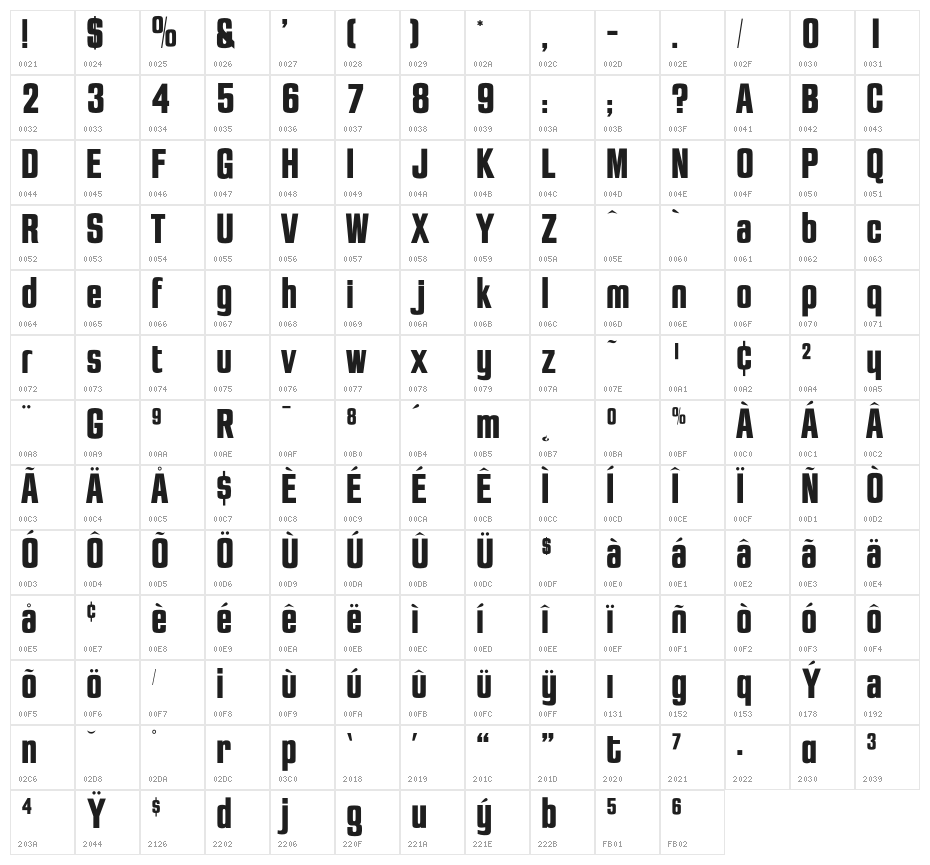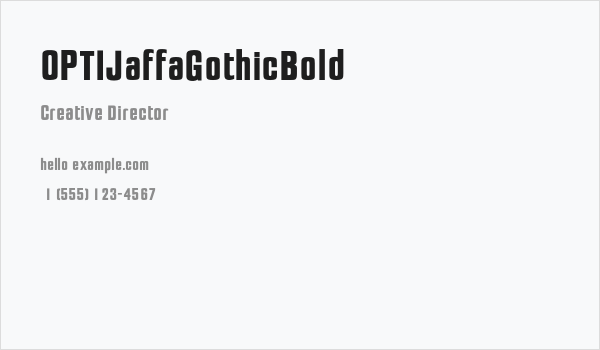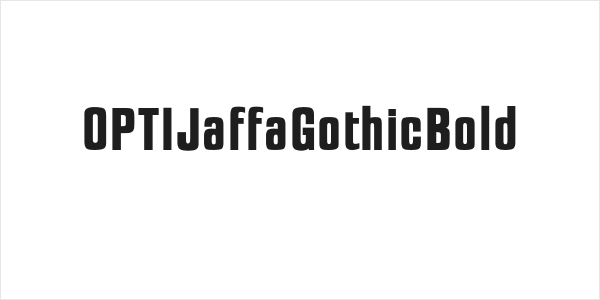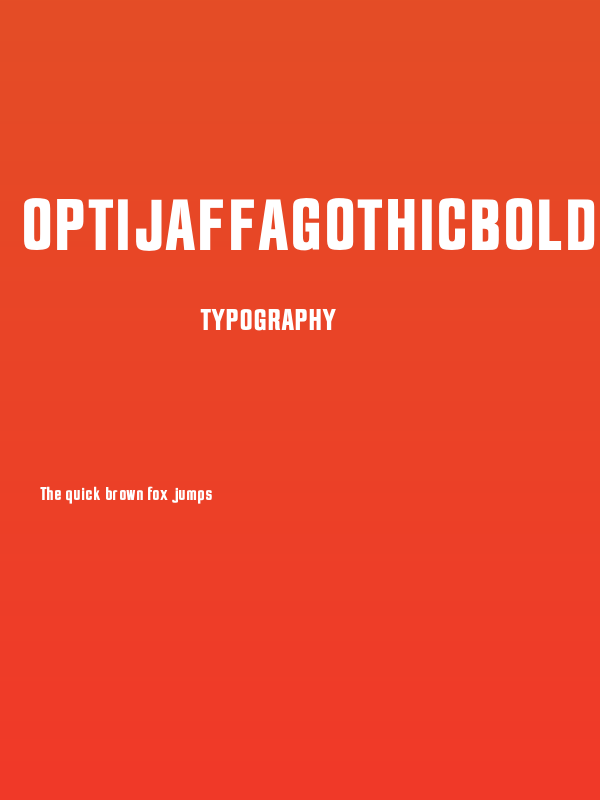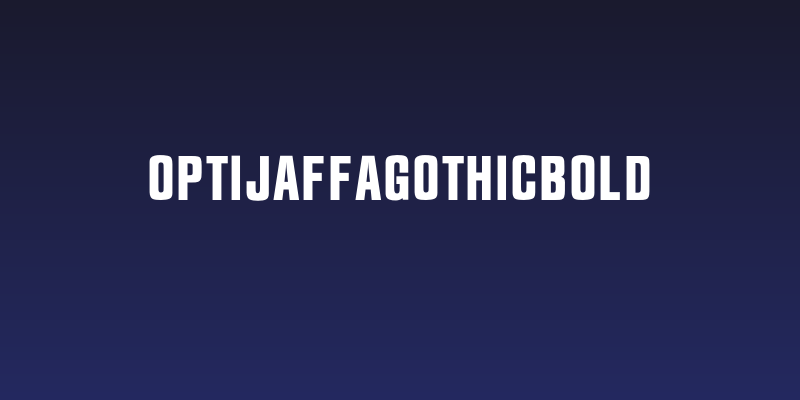
OPTIJaffaGothicBold Font
OPTIJaffaGothicBold Description
This font features a bold and assertive design, characterized by its thick, uniform strokes and strong geometric shapes. The uppercase letters are tall and commanding, while the lowercase letters maintain a consistent weight, providing a cohesive look. Numbers and special characters are crafted with the same boldness, ensuring readability and impact. The font's style is reminiscent of mid-20th century design, offering a modern yet timeless appeal. Its boldness makes it ideal for attention-grabbing headlines and logos, where clarity and presence are paramount.
| Proposed Projects | Perfect for branding, advertising, poster design, and any project requiring a strong visual impact. |